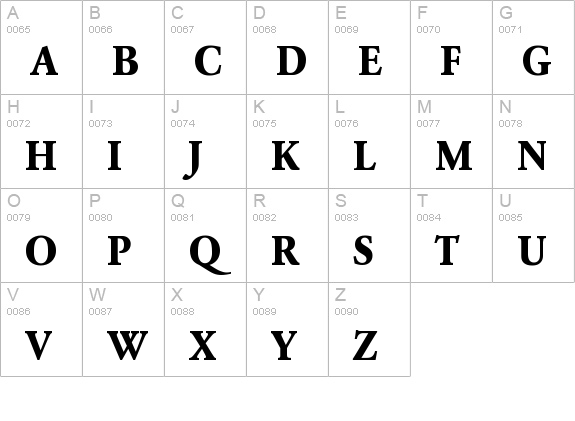
Garamond BE Bold Font Details
Garamond BE Bold is a strong, high-contrast variant in the Garamond typeface family \xE2\x80\x94 well suited to headlines, attention-grabbing titles, and strong calls-to-action.
Introducing Garamond BE Bold, a captivating typeface that exudes confidence and elegance. This font is the perfect fusion of classic charm and modern sophistication, making it an ideal choice for any design project that requires a touch of timeless beauty. With its bold and commanding presence, Garamond BE Bold commands attention and effortlessly captures the essence of your message. Its refined strokes and delicate curves add a touch of refinement to any text, whether it's used for headlines, titles, or body text. The thick, strong lines of this font make it highly legible, ensuring that your words are easily read and understood. Garamond BE Bold is not just visually stunning; it also offers the ultimate convenience. This font is freely available to download at FontsMarket.com, allowing you to effortlessly incorporate it into your designs without any cost. This free access to such a remarkable typeface ensures that designers of all backgrounds can enjoy its beauty and versatility. Whether you're designing a logo, creating a brochure, or crafting a website, Garamond BE Bold will elevate your project to new heights. Its timeless appeal and versatility make it suitable for a wide range of applications, from traditional to contemporary. The bold weight of this font makes it particularly well-suited for impactful headlines and eye-catching titles that demand attention. Experience the sheer beauty and versatility of Garamond BE Bold today. Download it for free at FontsMarket.com and unlock a world of possibilities for your design endeavors. Let this font become your go-to choice for adding a touch of sophistication and style to your creations. With Garamond BE Bold, your designs will effortlessly stand out and leave a lasting impression on your audience.